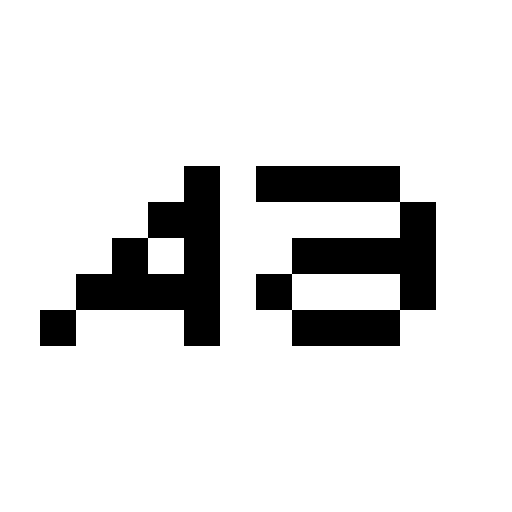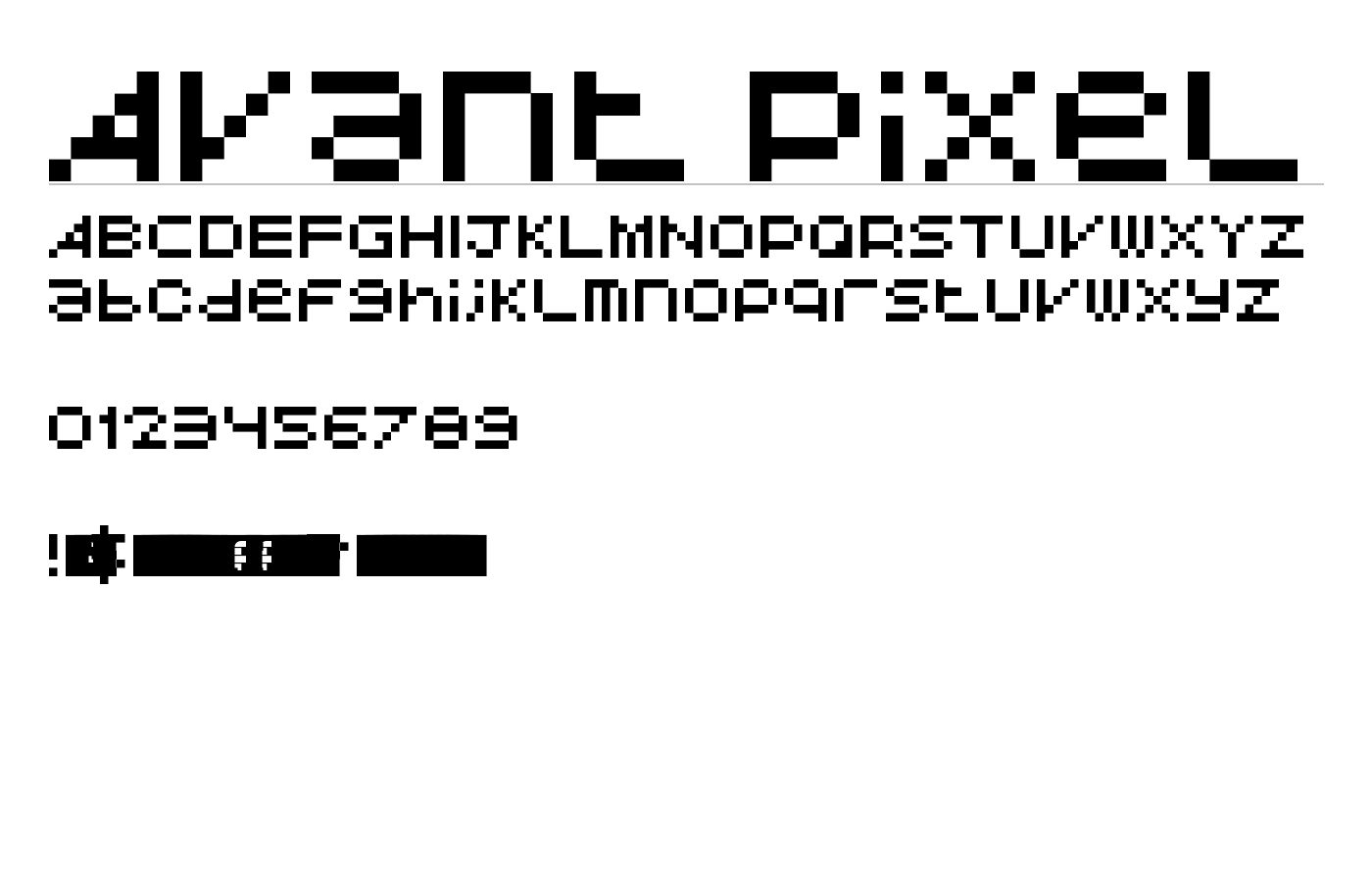
Avant Pixel is a bold, geometric sans serif font inspired by retro pixel art, featuring blocky, square letterforms that emphasize a digital and tech-savvy vibe. Its uniform stroke weight and sharp, pixelated edges make it perfect for video game design, digital interfaces, and eye-catching headlines that require a modern yet nostalgic feel. This font works well where a distinctive, playful, and futuristic style is needed.
Avant Pixel Font
About Avant Pixel Font